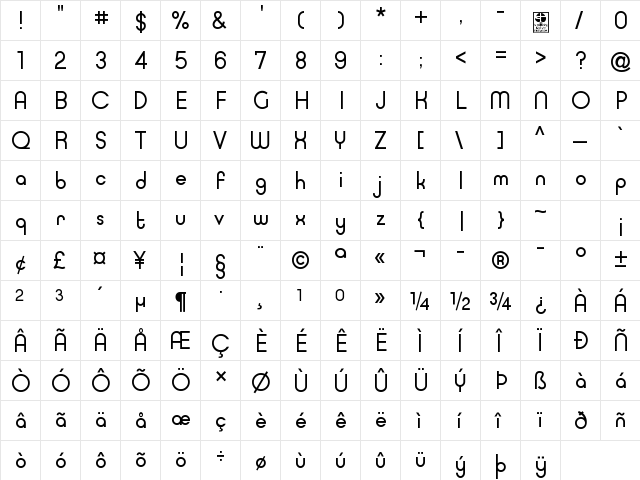
Typo Ring Demo Regular
Regular · StudioTypo Mehmet Abac ·
Design Context for Typo Ring Demo Typeface
Typo Ring Demo takes a measured approach to typography — its balanced proportions and neutral character make it a reliable workhorse for both digital and print work.